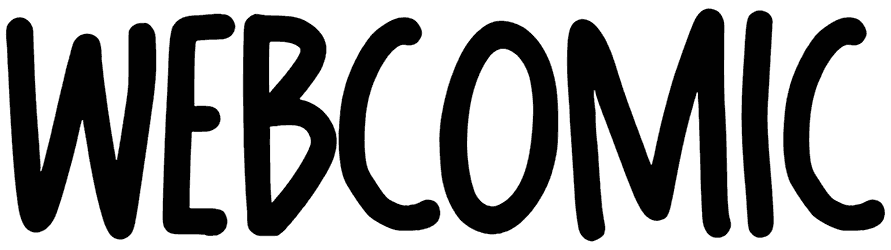
Webcomic Font
Here we come again to proudly introduce a marvelous script font to you that is commonly known as the Webcomic. This all-caps marker font comes with tall and crooked letters that make it really suitable for a wide range of creative ideas, such as social media posts, web page templates, gift cards, graffiti, or digital banners.
Aside from not fully supporting numbers, this masterpiece can bring a vibe of dynamic, personalization, vivacity, or tenderness to all of your work.